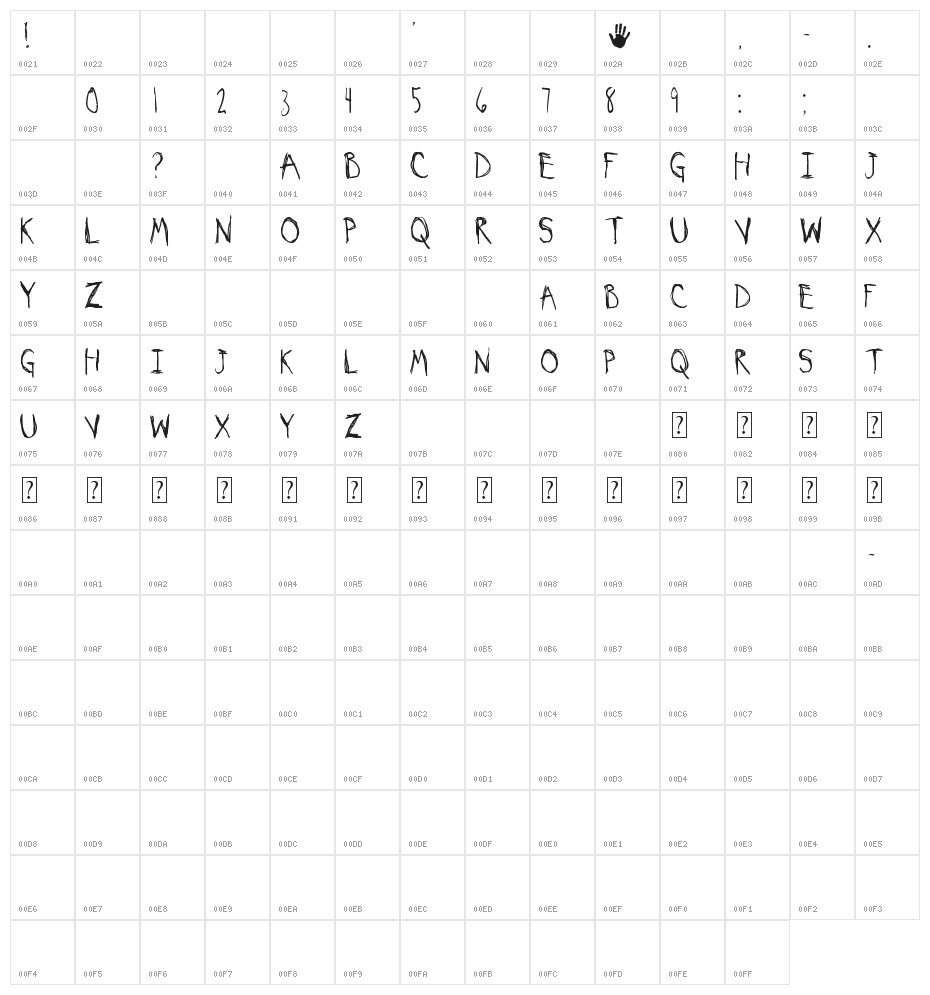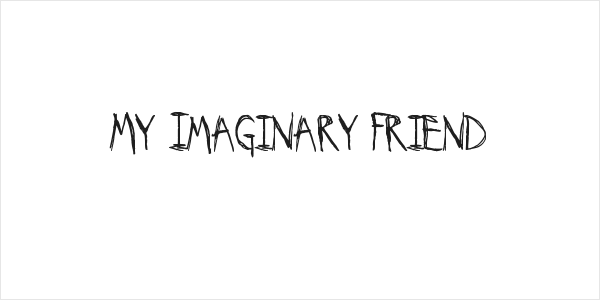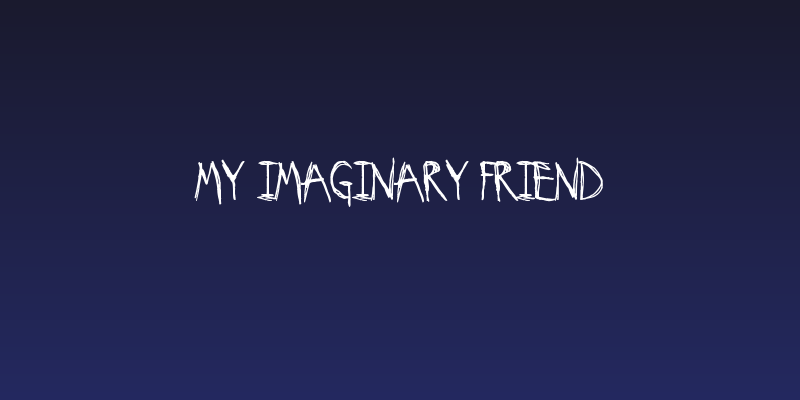
My Imaginary Friend Font
My Imaginary Friend Description
This font exhibits a raw, hand-drawn aesthetic that evokes a sense of spontaneity and creativity. The irregular strokes and uneven lines give it a distinctive, artistic flair, reminiscent of graffiti or street art. Each character appears to be uniquely crafted, with varying thickness and angles, adding to its dynamic and energetic appearance. The uppercase and lowercase letters maintain a consistent style, while the numerals and special characters complement the overall design. This font is perfect for projects that require a bold, expressive touch, such as posters, album covers, or any creative endeavor that seeks to capture attention and convey a sense of individuality.
MY-IMAGINARY-FRIEND UPPERCASE
MY-IMAGINARY-FRIEND LOWERCASE
MY-IMAGINARY-FRIEND OTHER CHARS
| Overall Style | Artistic, Graffiti |
| Proposed Projects | Ideal for posters, album covers, street art-inspired designs, and creative branding. |